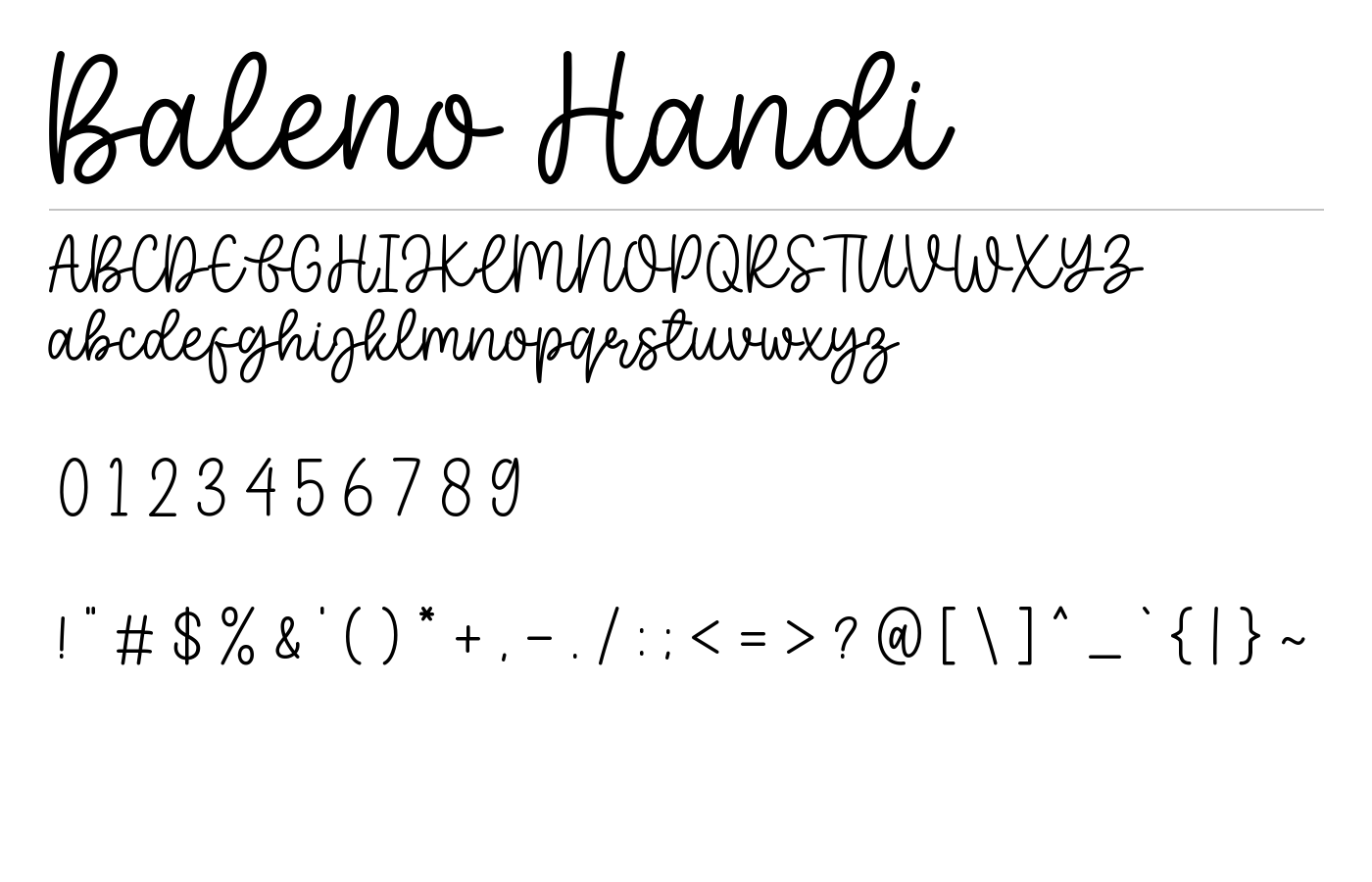
Baleno Handi is a playful, handwritten script font characterized by its light weight and clean, flowing strokes that give it a friendly and approachable feel. Its tall x-height, single-story lowercase letters, and casual letter connections make it ideal for creative, informal branding, invitations, and lifestyle projects where a personal touch is desired. This font works best in headlines, logos, and packaging where warmth and personality are key.
Baleno Handi Font
About Baleno Handi Font
| Font family | Baleno Handi Font |